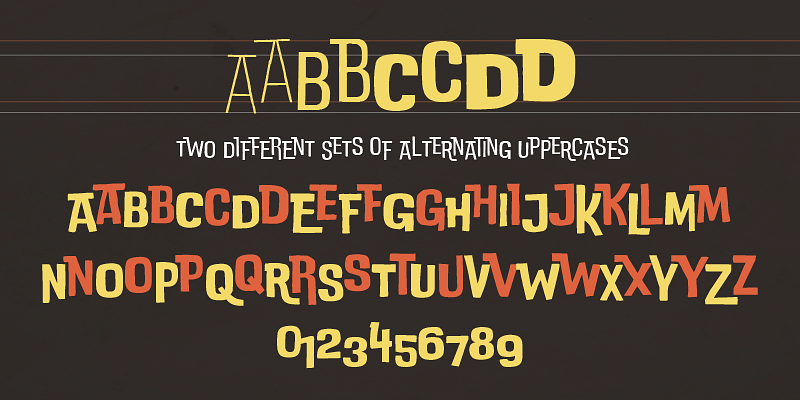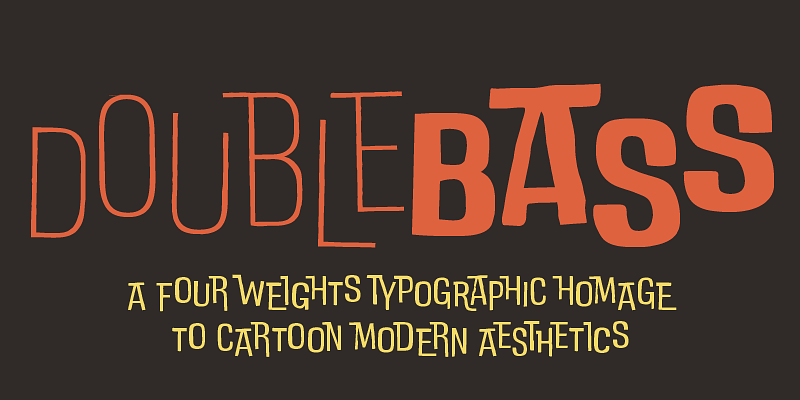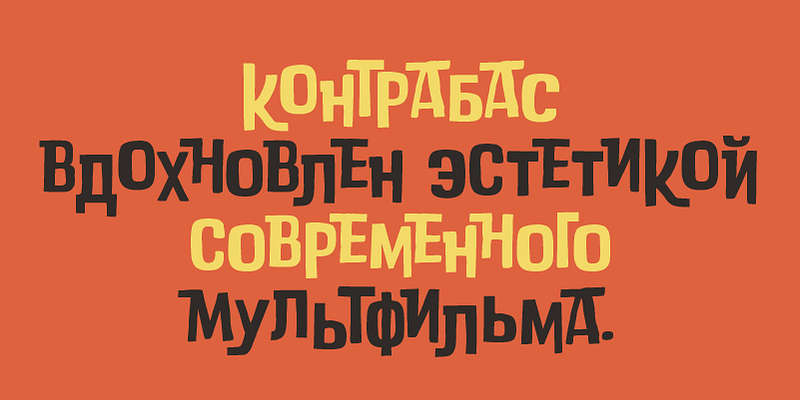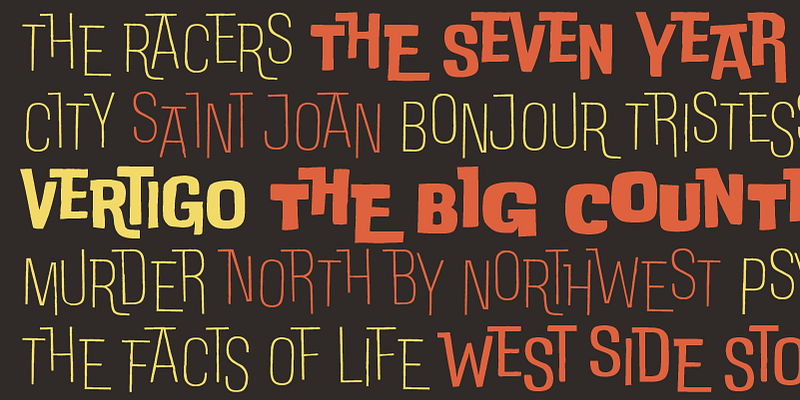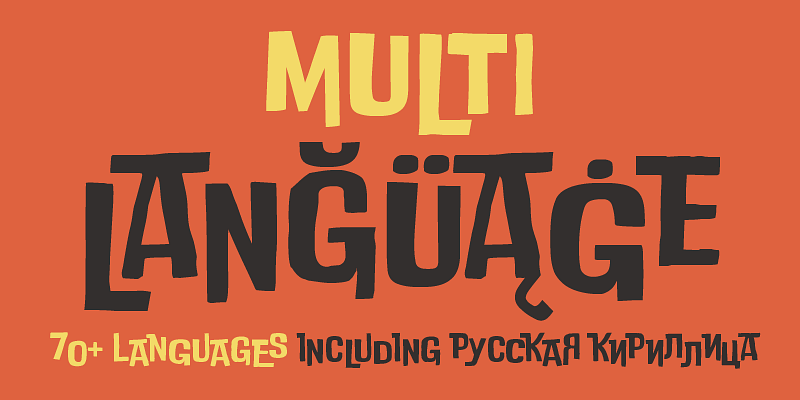
There’s no way for a true lettering aficionado to avoid falling in love with Saul Bass’s vibrating, almost brutal cut-out aesthetics. As an humble homage to Bass’s inspiration and sensibility, and inspired also by cartoon modern lettering and jazzy graphics of the fifties, Cosimo Lorenzo Pancini decided to work on a typeface that could show interlocking rhythm and variation in design without resorting to thousands of ligature special letters, but rather by virtue of its modular structure.
The result is DoubleBass, a jazzy four-weights display family that provides an out-of-the-box tool for cartoon modern style logo and heading design. The alternating sets of capital letters and numbers make sure that a bouncy rhythm is kept while you type away, thanks to open type ligature substitution.
Lighter weights can work for small blocks of text, while the regular and heavy weights show their best in big sizes and display uses. Foreign languages using the Latin alphabet are covered, as well as Russian Cyrillic.
Anytime you need that jazzy retro vibe, just put on your turntable some cool bebop record and start designing!